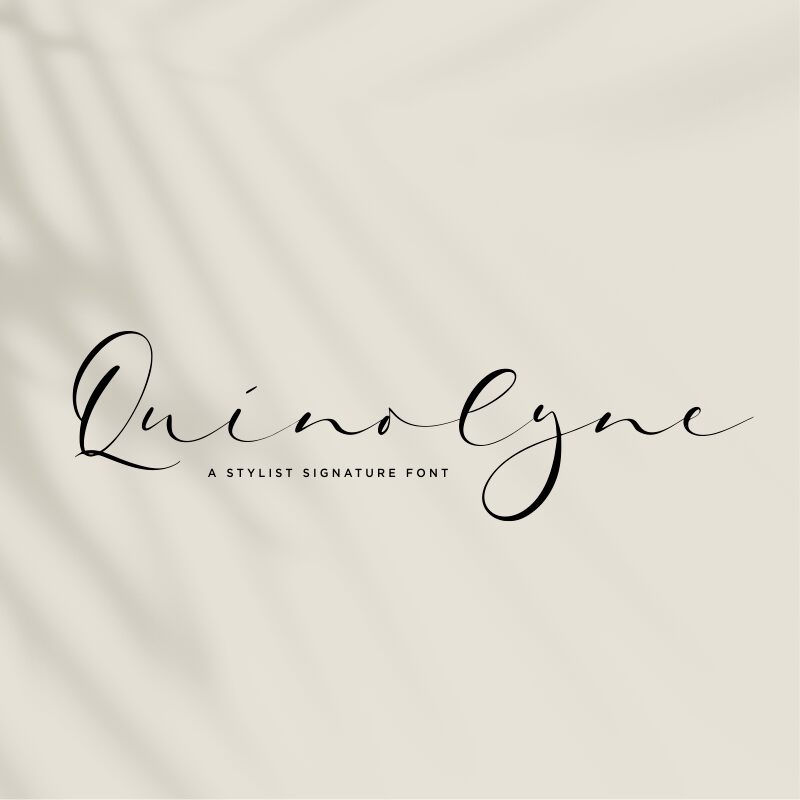
Quinolyne
Introducing Quinolyne, a stylish calligraphy font from Qwrtype Foundry. With its light weight, this unique font is perfect for adding a touch of elegance to your wedding invitations, logo designs, or any other creative project.